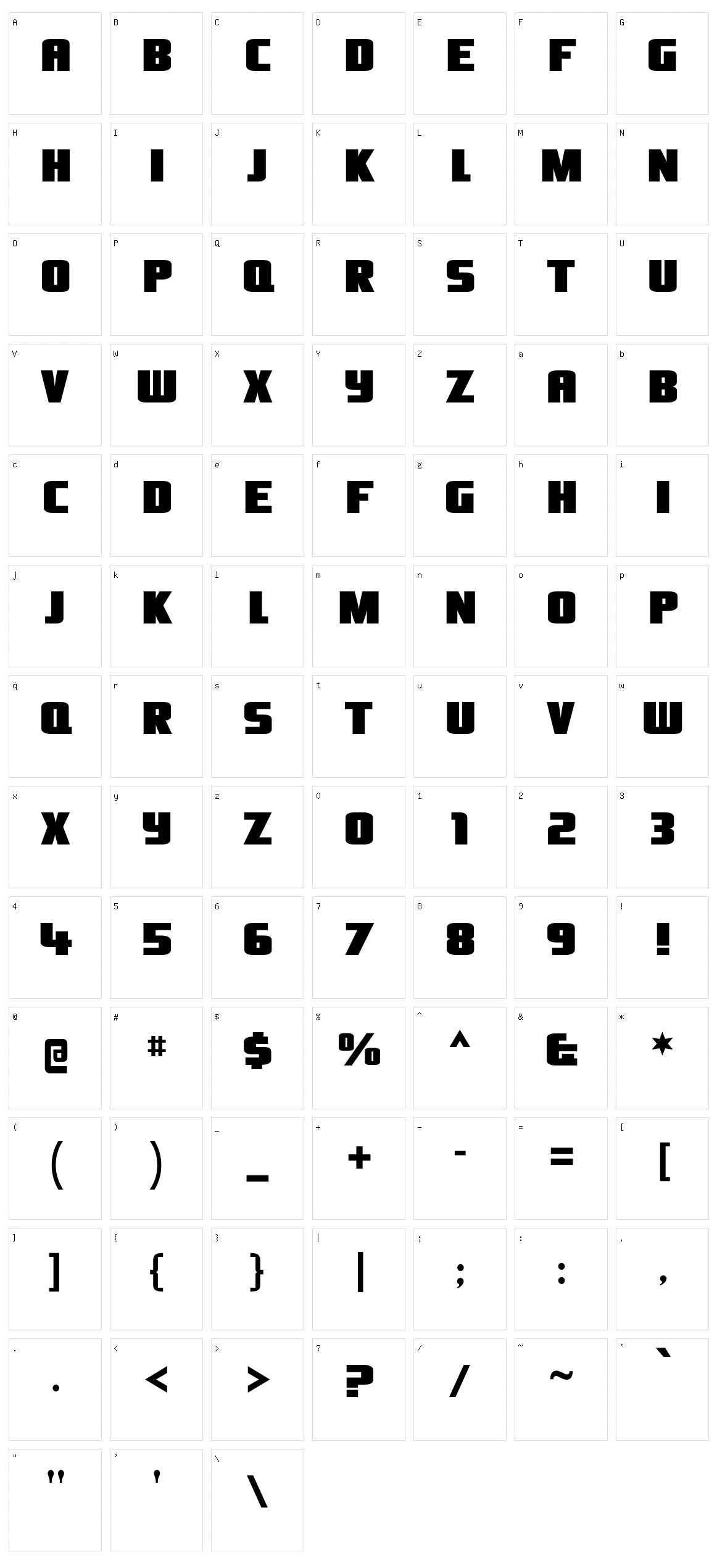
The free font Oliver's Barney is carefully designed by Typodermic Fonts, showcasing a thoughtful balance of creativity and usability and falls under the Sans serif font style. When you download the ZIP file, it contains only 13.61 KB of font files, making it lightweight and quick to download. Please review the license details below to understand permitted usage and distribution rights. If license information is not available, we recommend using this font for personal projects only or contacting the author directly for commercial usage permissions.